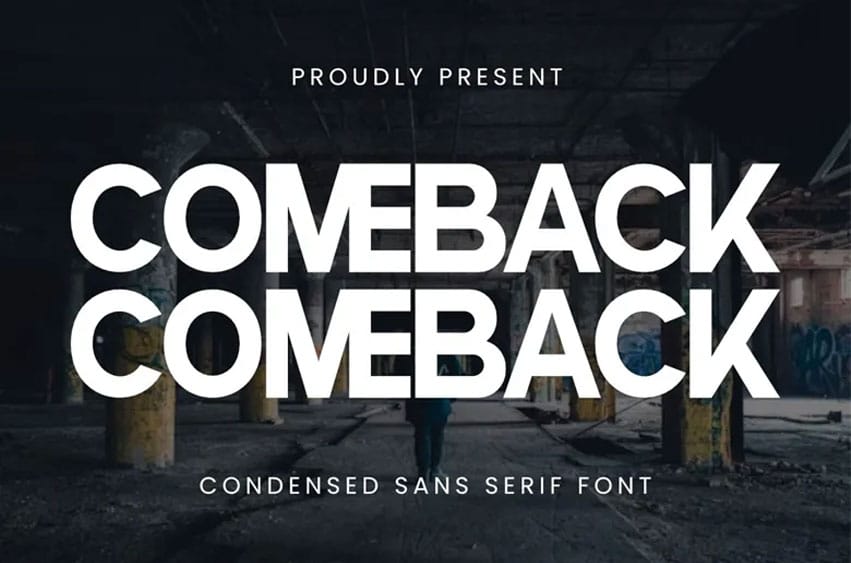
Comback Font is a condensed sans-serif font with bold, contemporary look that radiates power and confidence in each letterform. Its geometric structure and clean lines makes it a go-to option for Silhouette and Cricut projects, t-shirt designs, posters, branding, logos and captivating headlines.